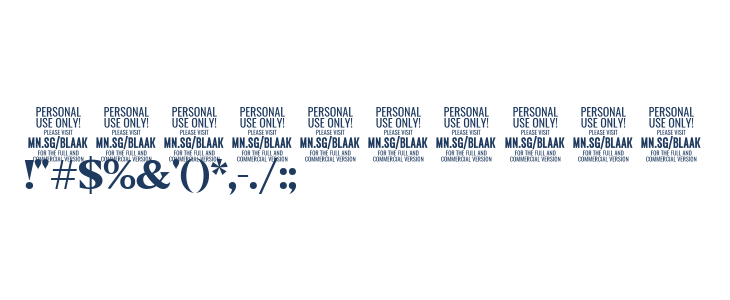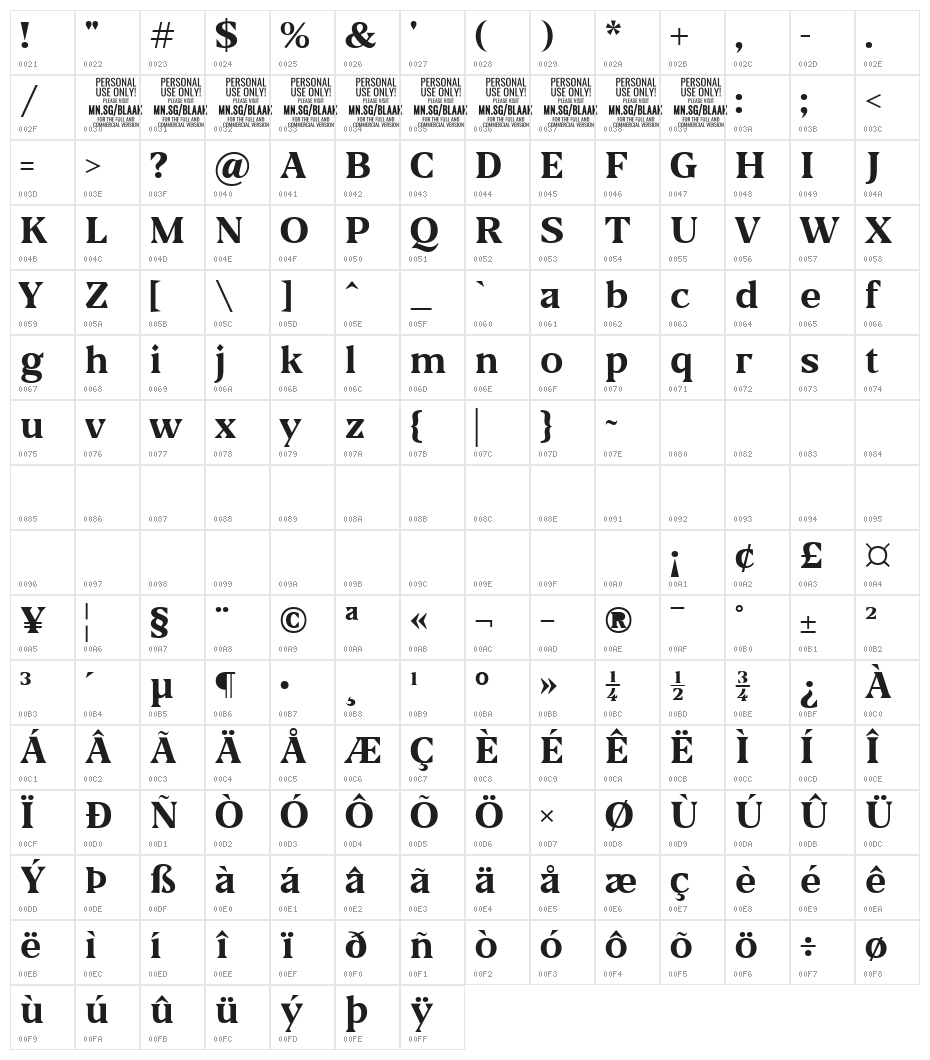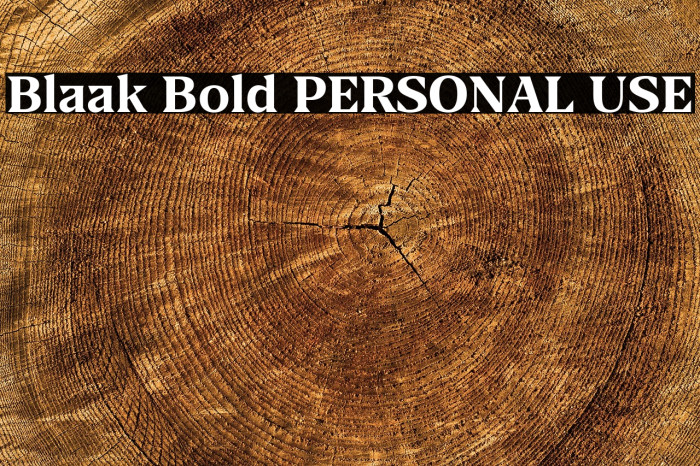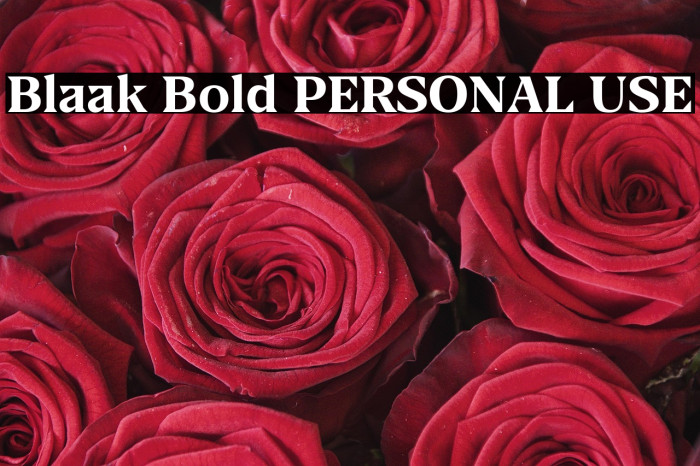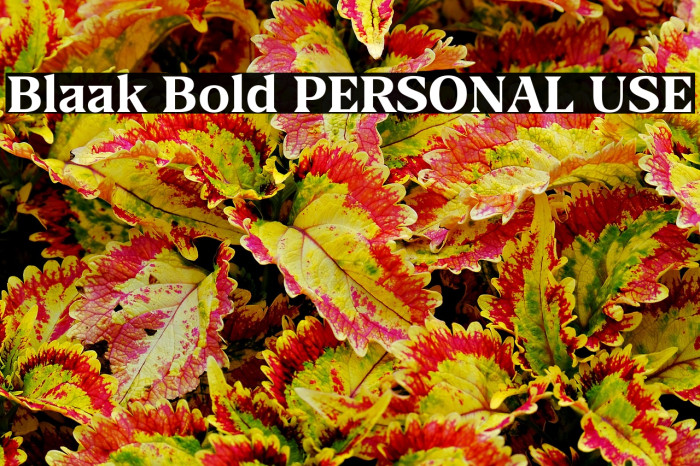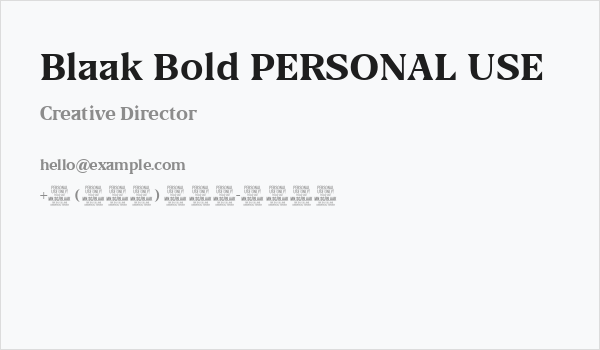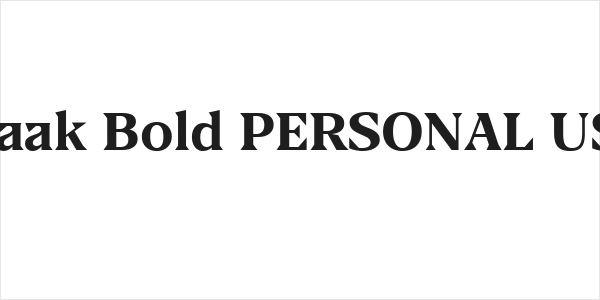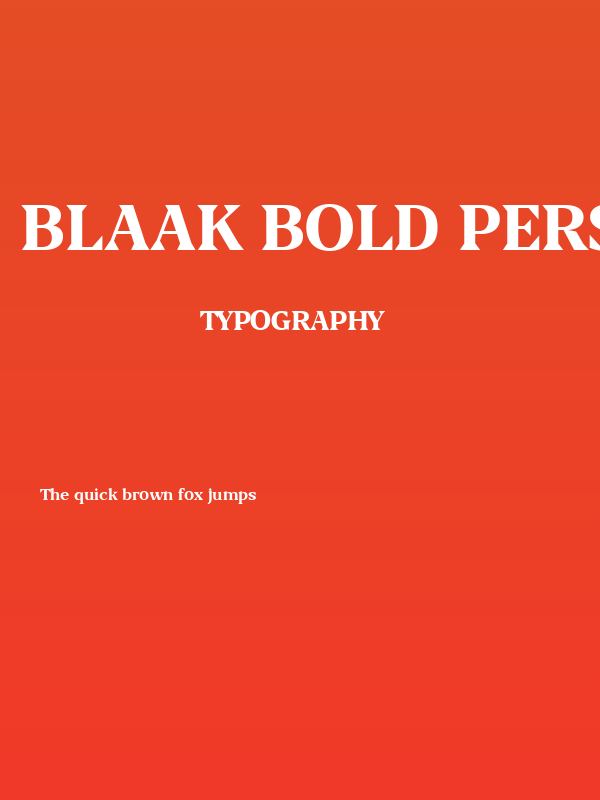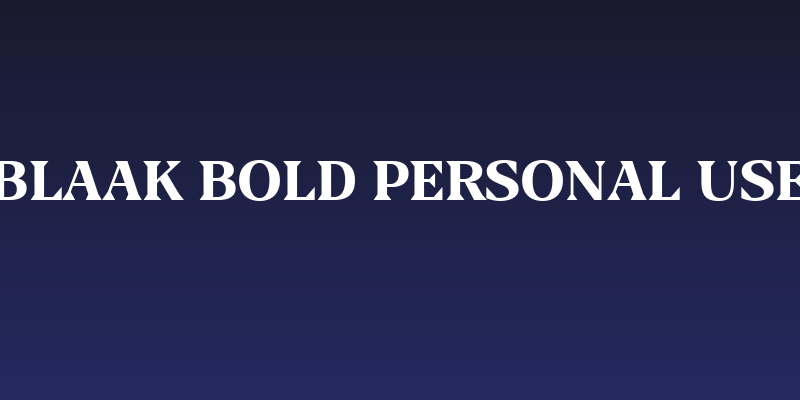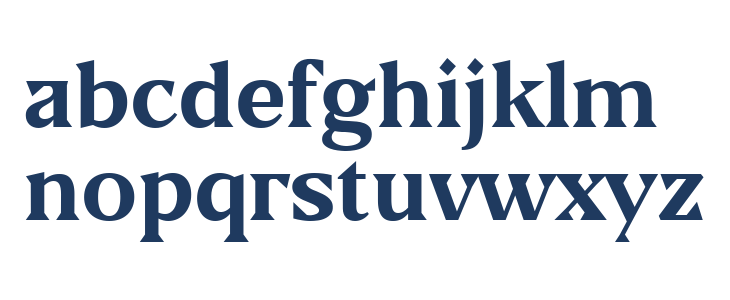
Blaak Bold PERSONAL USE Font
Blaak Bold PERSONAL USE Description
This font features a bold and striking serif style, characterized by its thick, prominent strokes and sharp, angular serifs. The uppercase letters exhibit a strong presence with a slightly condensed form, while the lowercase letters maintain a consistent weight, offering a harmonious balance. The numerals are equally bold, ensuring readability and impact. Special characters are designed with the same boldness, making them stand out effectively. The overall design is modern yet retains a classic serif elegance, making it versatile for various applications.
| Use Case | Headlines, Logos, Editorial design |
| Proposed Projects | Ideal for headlines, branding, editorial design, and logo creation where a strong, impactful serif is desired. |